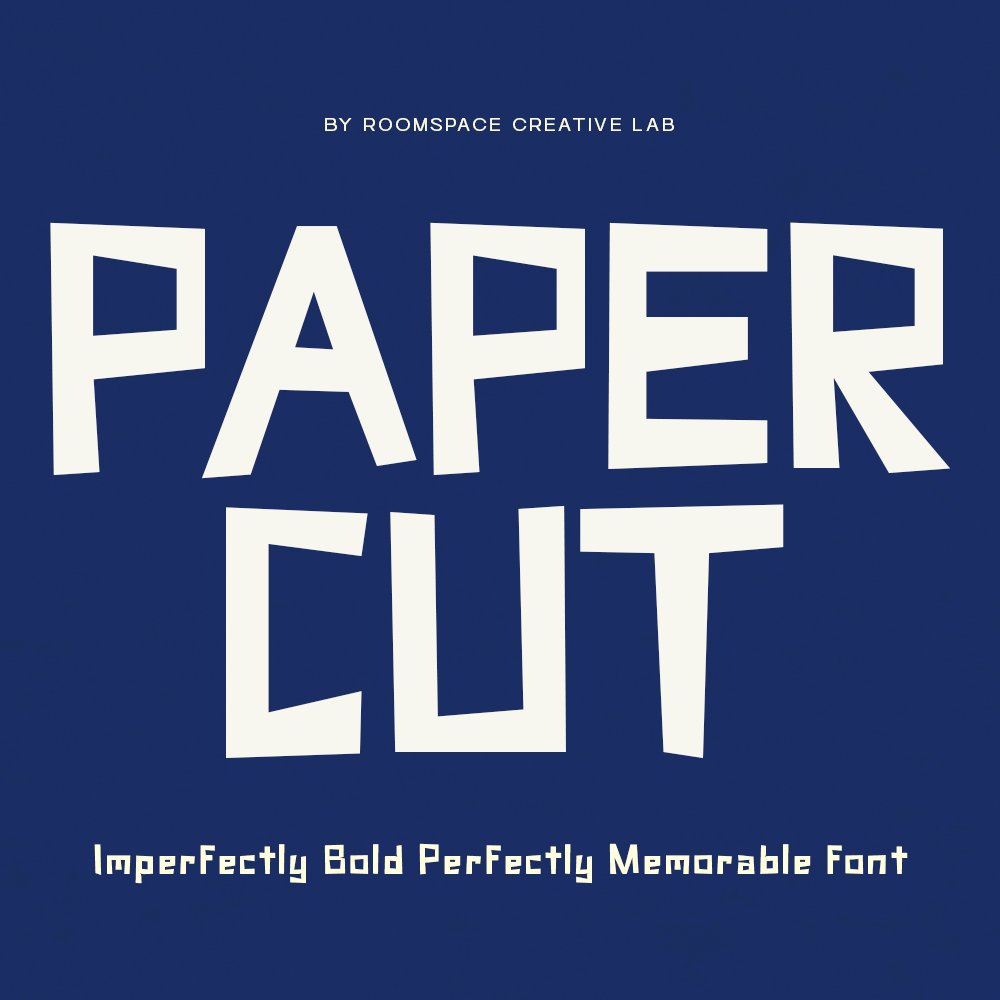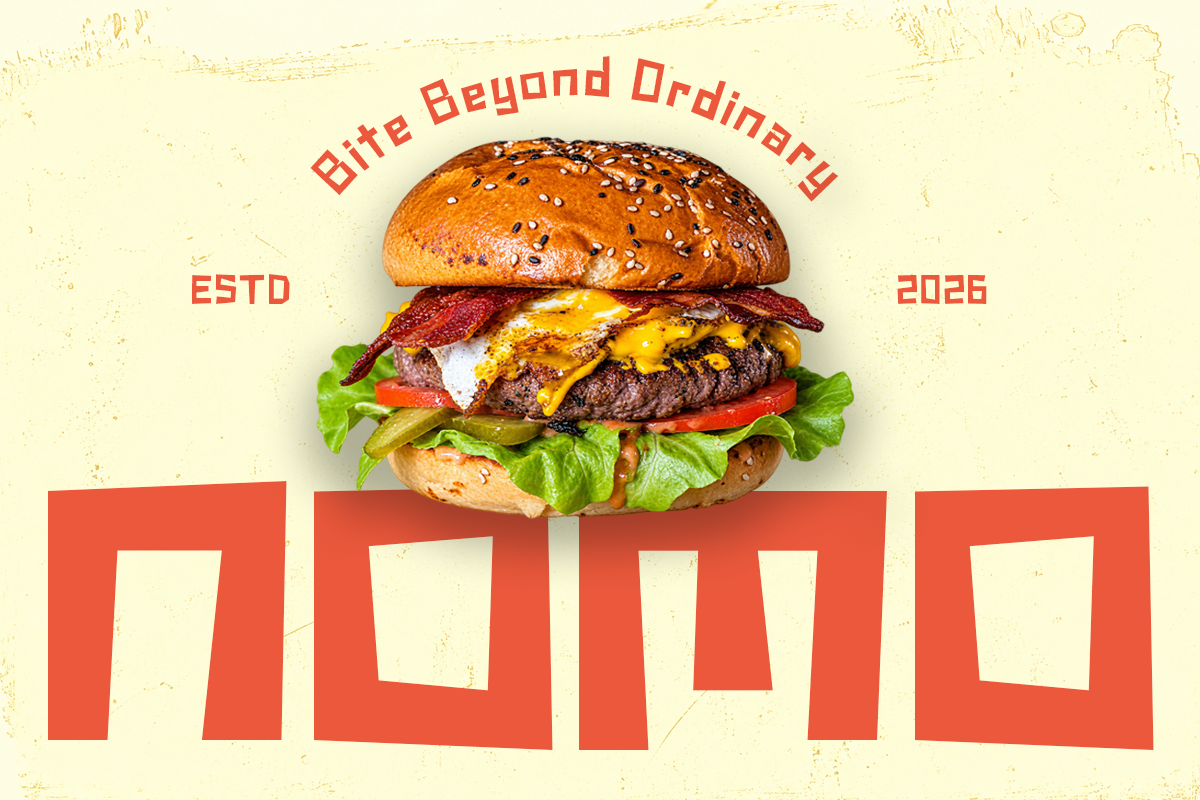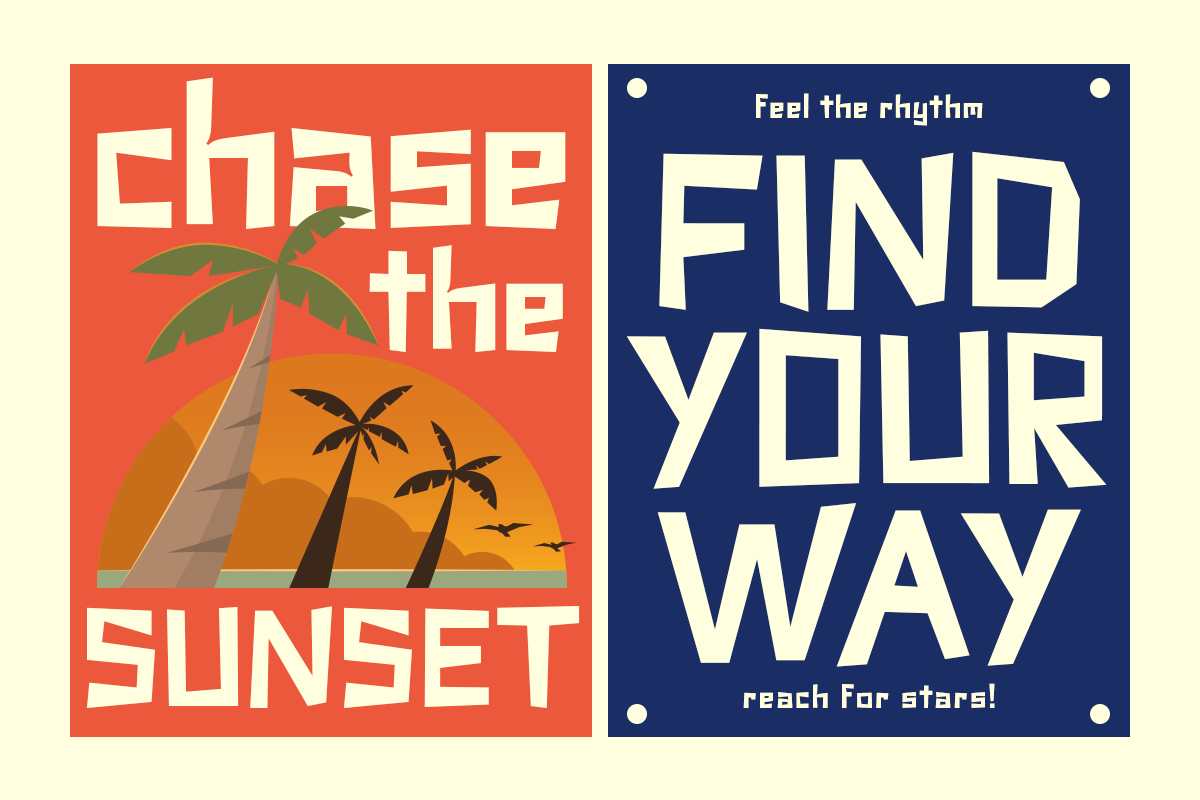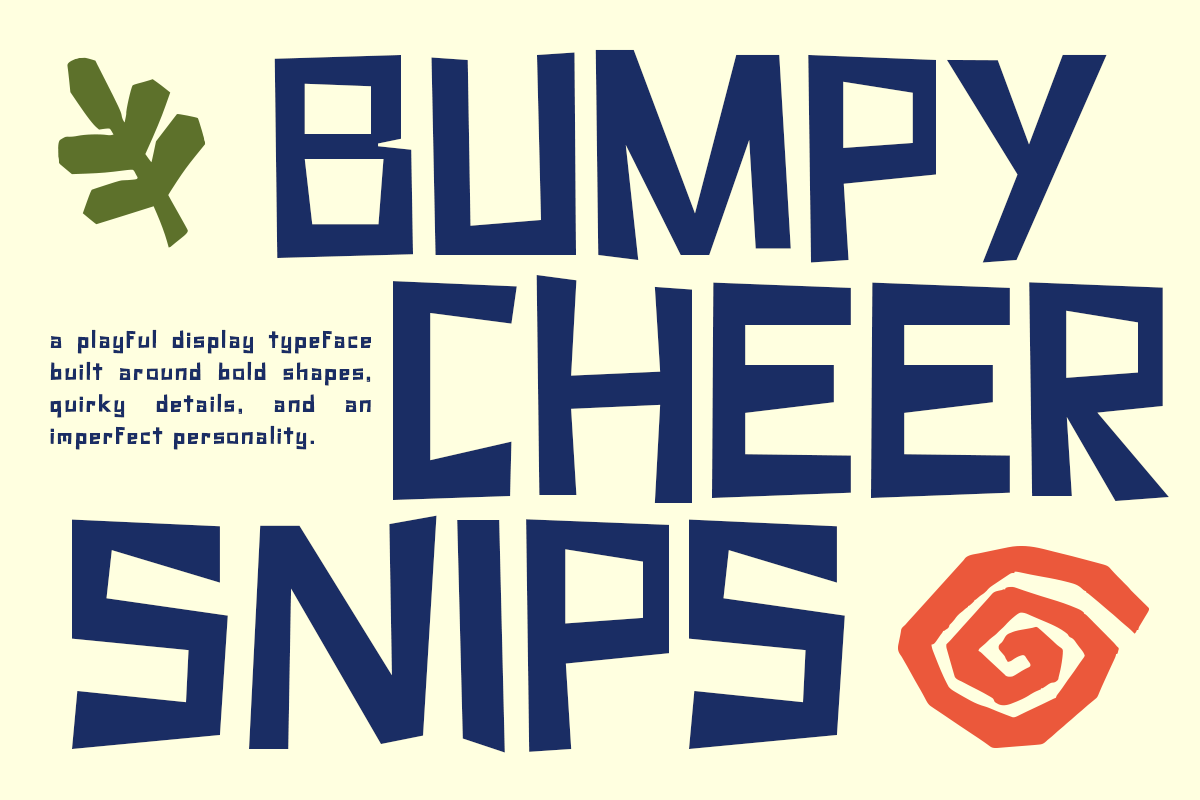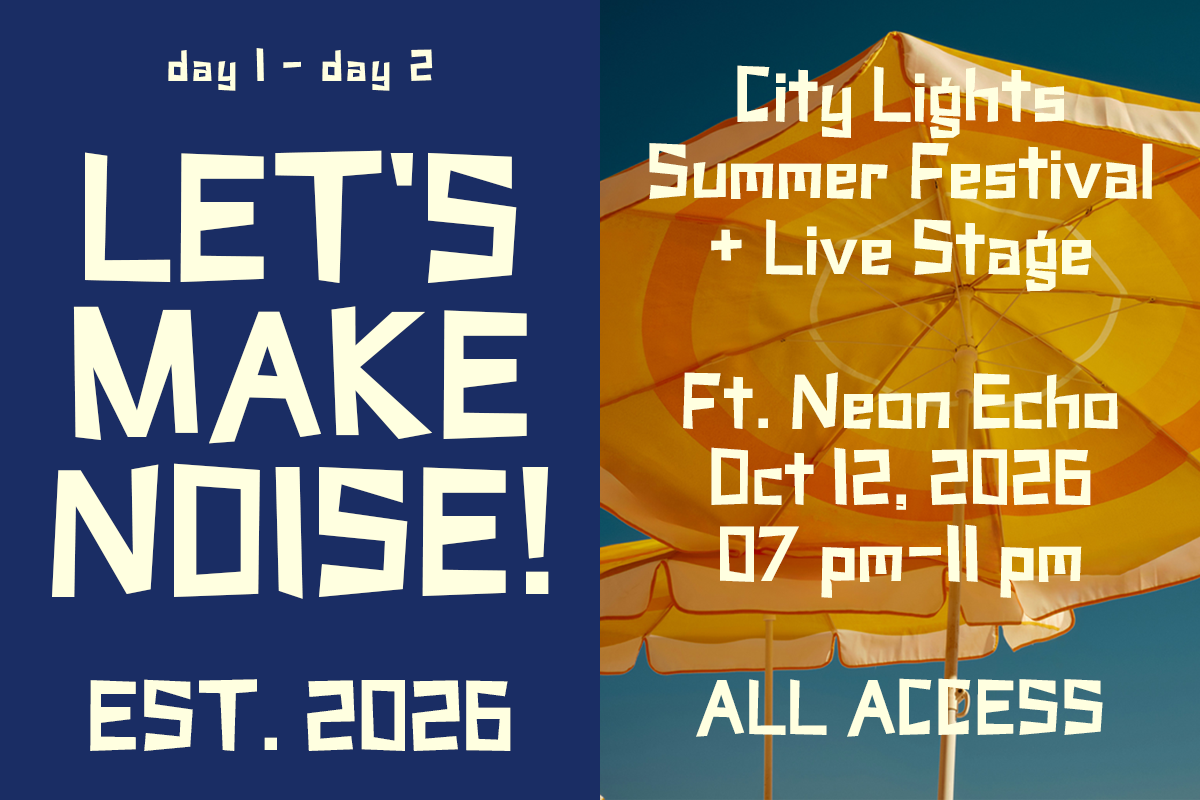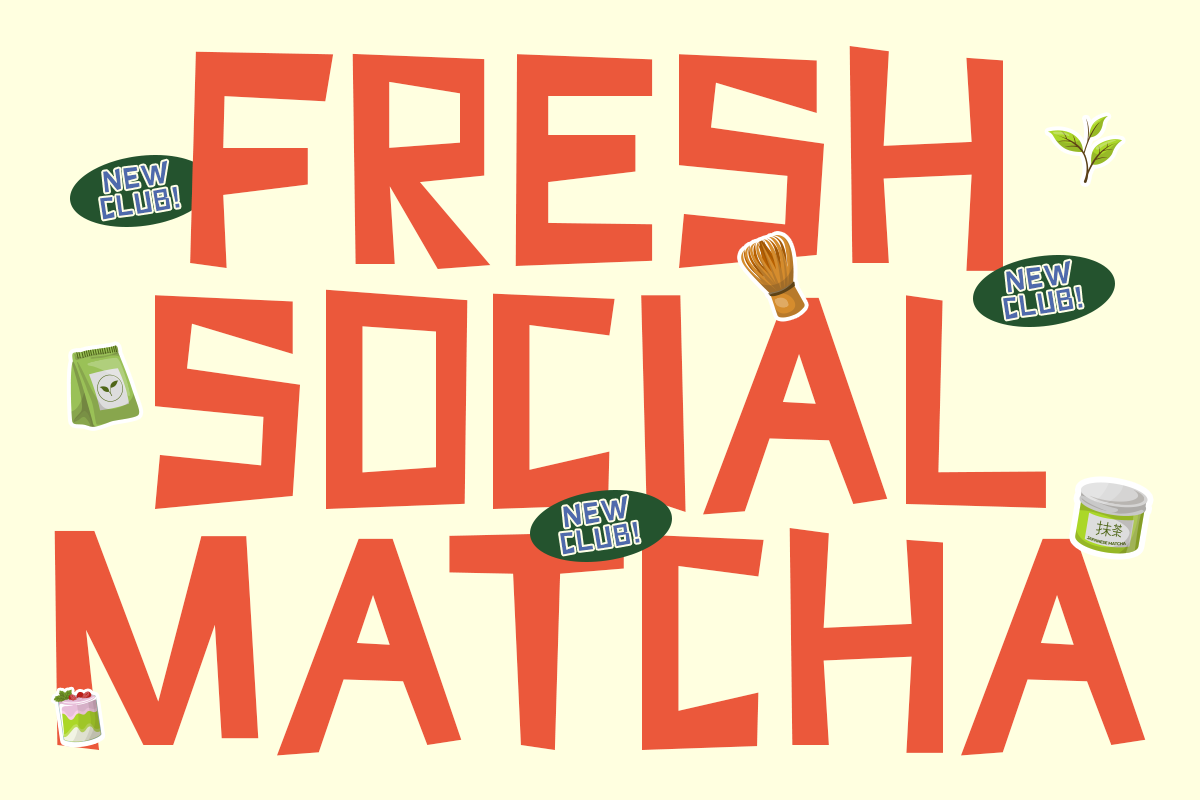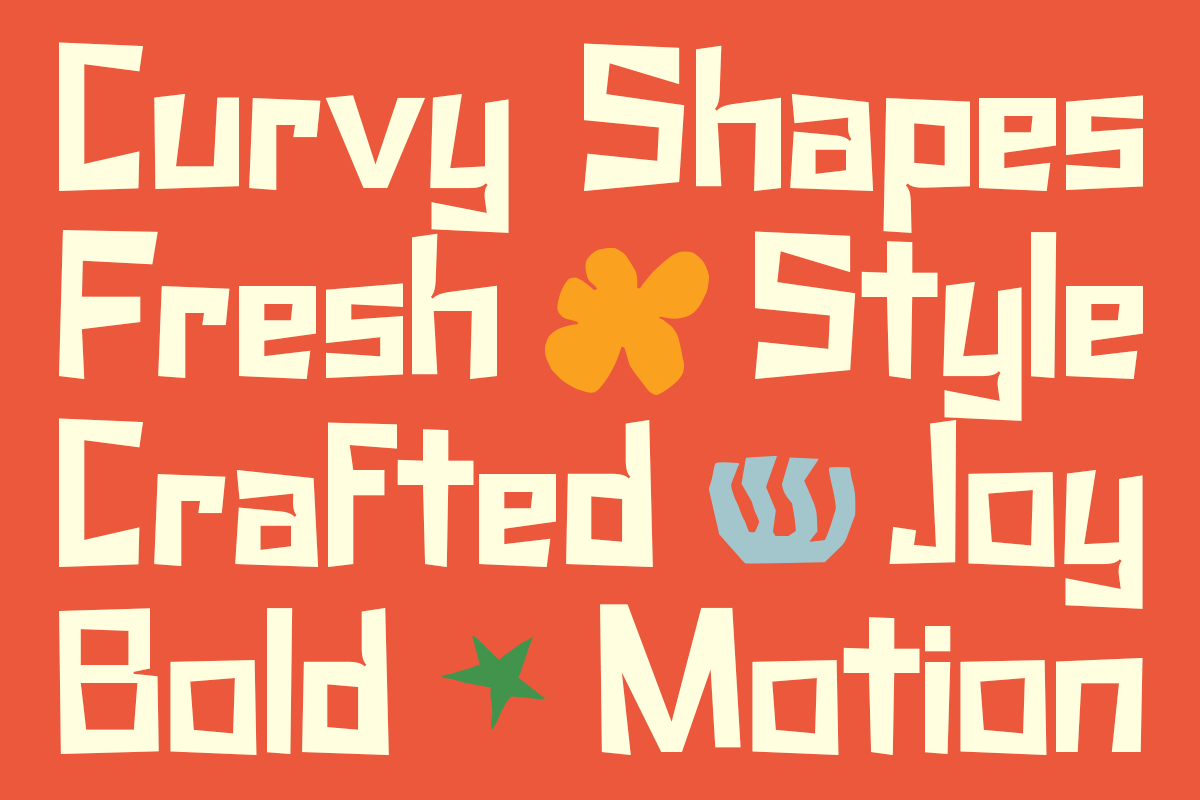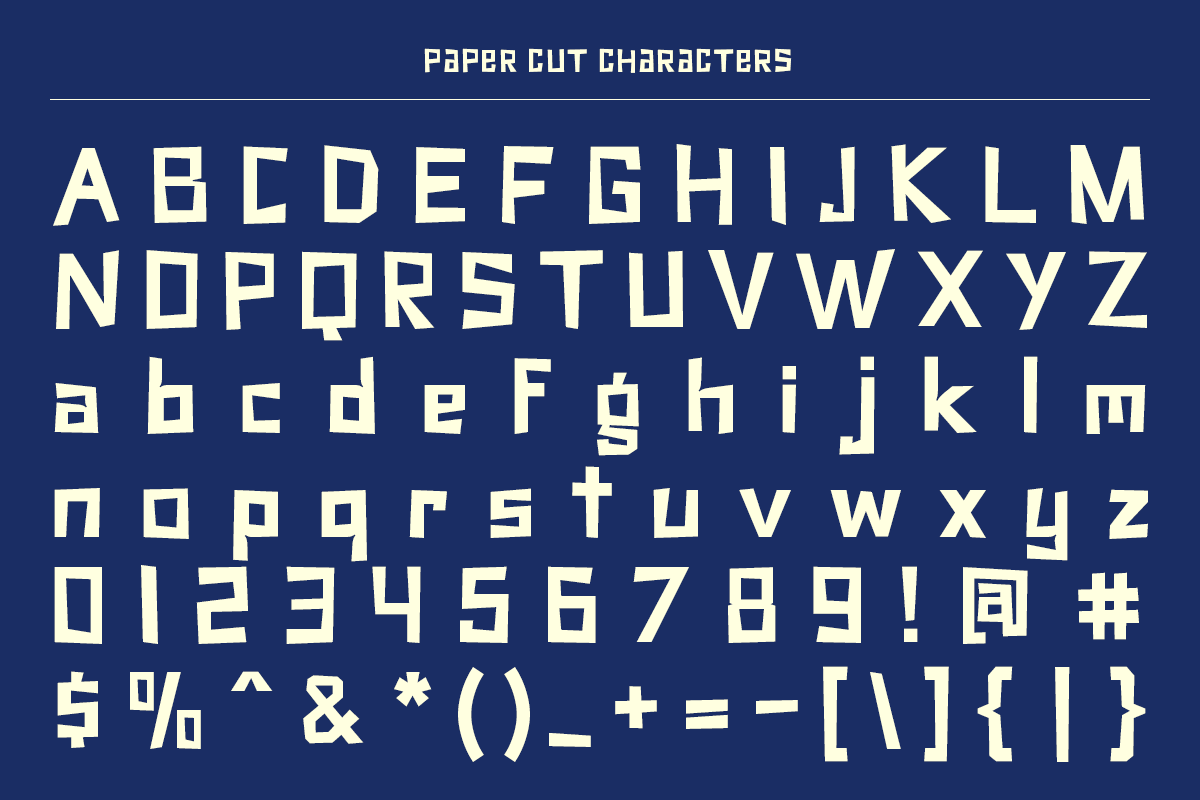
Paper Cut - Playful Display Typeface
Paper Cut is a bold, playful display typeface designed with irregular proportions, geometric shapes, angular cuts, and distinctive letter details. Its unconventional forms and imperfect construction create strong, expressive headlines with a quirky, handmade personality while maintaining clear, recognizable letterforms.
Designed primarily for display, Paper Cut is ideal for creative branding projects that require a bold, energetic typographic presence. Whether you're creating logos, product packaging, posters, festival graphics, editorial layouts, food and beverage branding, advertising visuals, social media graphics, or other creative designs, this typeface brings a playful character and strong visual impact to every composition.
Its distinctive and irregular letterforms make Paper Cut especially suitable for expressive typography, creative headlines, retro-inspired graphics, and contemporary visual identities where type needs to become an important part of the overall design.
Paper Cut is a bold display typeface featuring irregular proportions, geometric shapes, angular cuts, and distinctive letter details. It includes uppercase and lowercase letters, numbers and punctuation, multilingual support, and is available in OTF, TTF, WOFF, and WOFF2 formats.